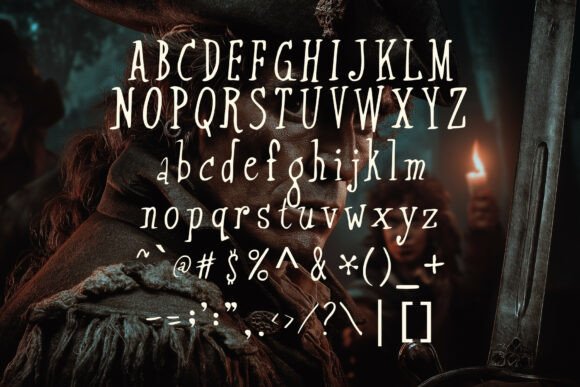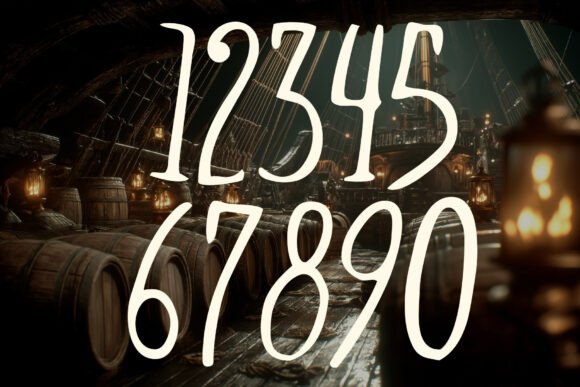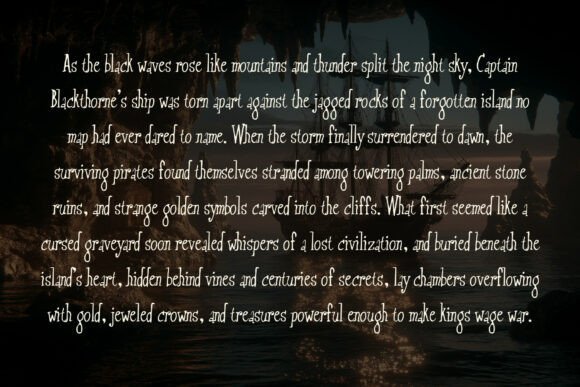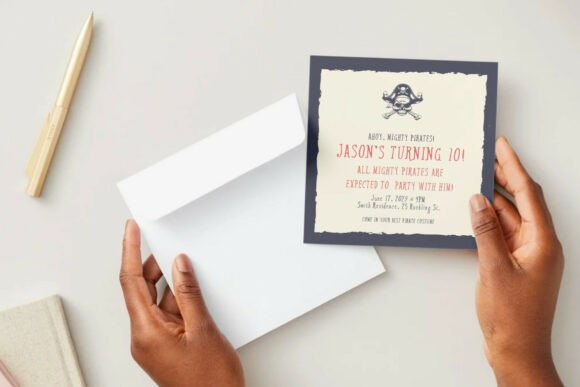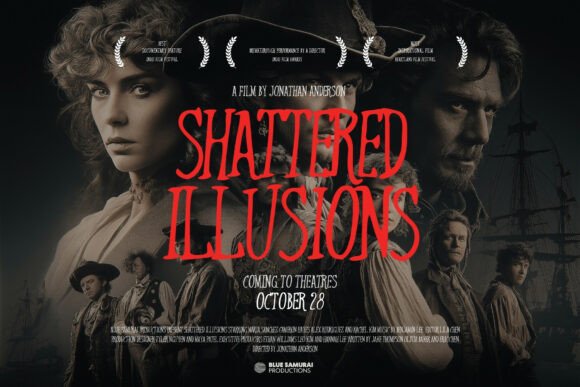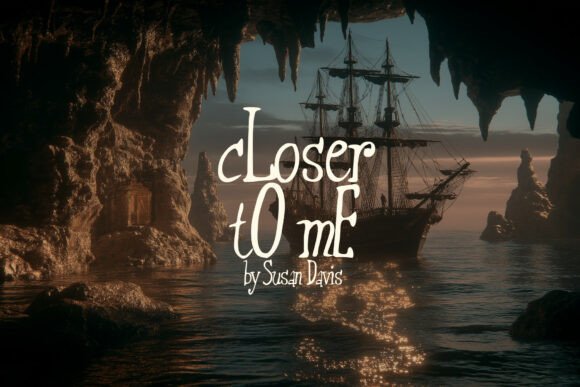
Introduction to Rough Draft Font
Rough Draft is a handwritten serif typeface full of personality and authenticity.
Itโs not about perfection โ itโs about character, warmth, and a human touch Each letter feels crafted by hand, bringing an organic, imperfect charm that stands out in modern designs.